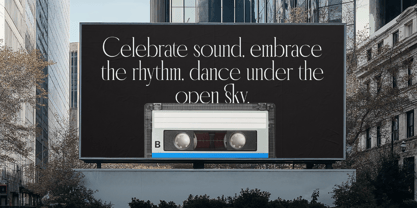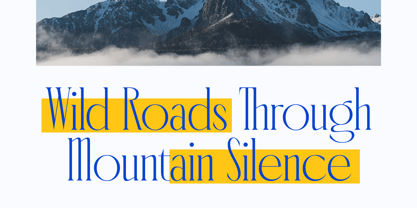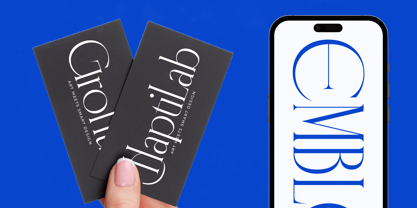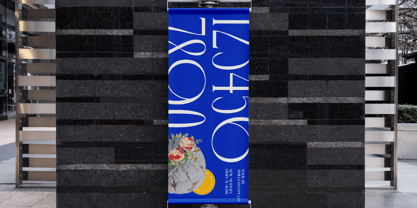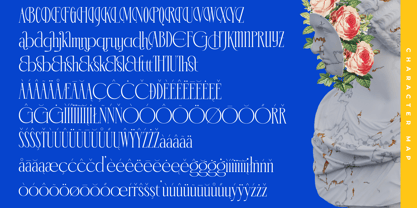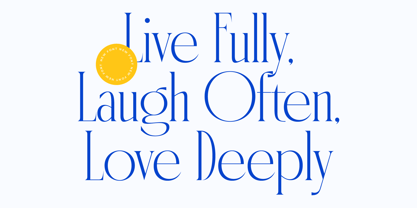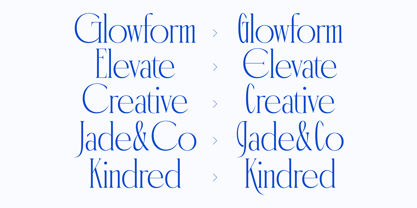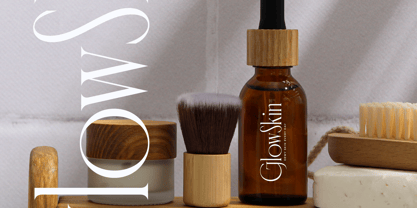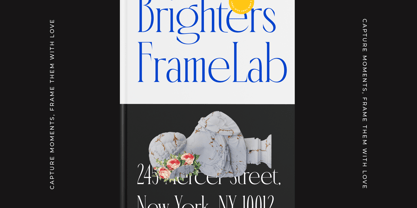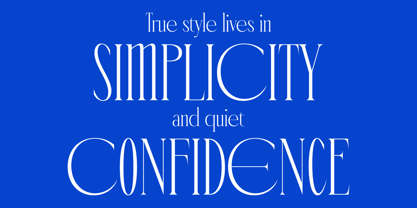
Emblora
The Emblora Font Family was designed by Heru Utama Putra and published by Timelesstype Studio. Emblora contains 2 styles and family package options. More about this family
Emblora - Modern Display Serif , from Timelesstype, Suitable for any projects such as: logos, branding projects, homeware designs, product packaging, mugs, quotes, posters, shopping bags, t-shirts, book covers, name card, invitation cards, greeting cards, label, photography, watermark, special events, and all your other luxury and beautiful projects that need a Luxury Serif taste.